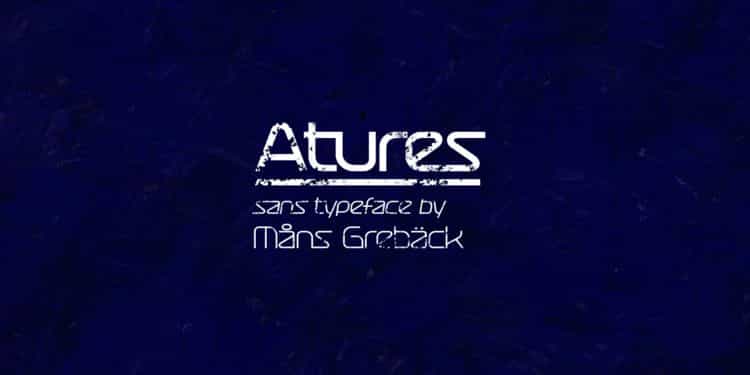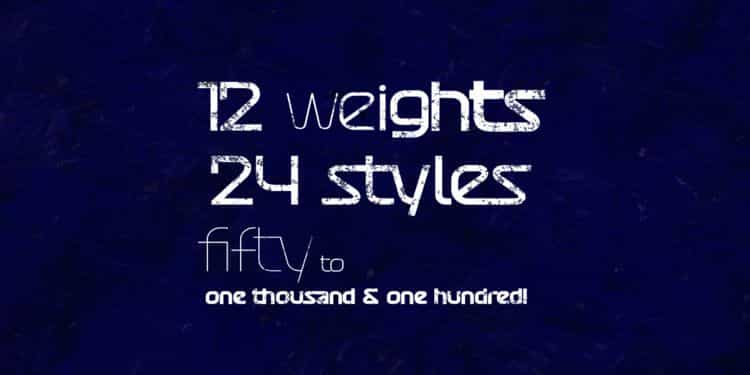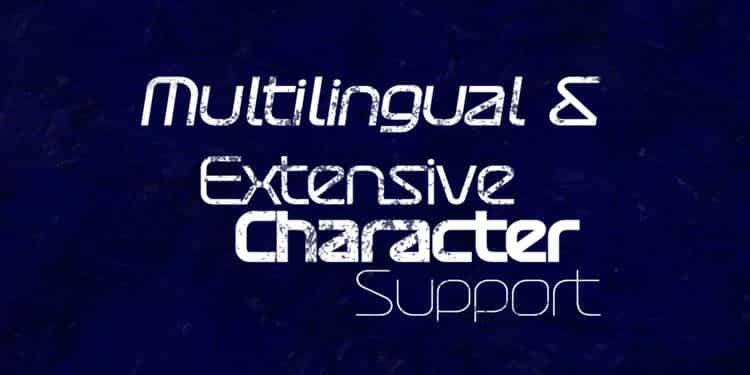
Discover Atures Font Family, part of the Sans Serif Display Typewriter collection—a versatile and unique font perfect for adding a personal touch to your projects. Download it for free and enjoy crafting designs with style, from invitations to social media posts. This font is available exclusively for personal use, giving you the freedom to create without limits. Unlock your creativity with Atures Font Family today!
Introducing Atures Typeface! Atures that are created by Måns Grebäck and shared with the public. Atures is a high quality multi-weight typeface. It is a professional font family that has futuristic, space-inspired design.